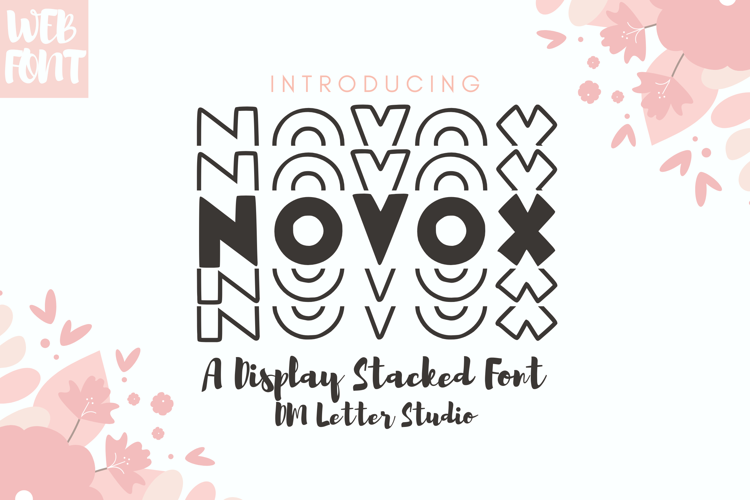
Novox Stacked - Bold Blocky Display Font
Novox Stacked – Bold Blocky Display Font
Novox Stacked is a powerful, all-caps display font with a compact and vertically aligned design. Crafted for maximum impact, this typeface brings boldness and order to logos, posters, signage, sports merchandise, and urban branding. Its stacked orientation gives a modern, architectural feel, making it ideal for space-efficient headlines and striking graphic layouts.
• Stacked Letter Design: Vertically aligned characters for a unique and contemporary display aesthetic.
• All-Caps Format: Strong uppercase characters create a uniform, impactful structure.
• Perfect for Bold Branding: Works well for athletic apparel, esports graphics, posters, or modern labels.
• Highly Legible: Despite its condensed form, the font maintains clarity and readability in all sizes.
• Versatile Use: Balances edgy design with clean lines for both digital and print media.